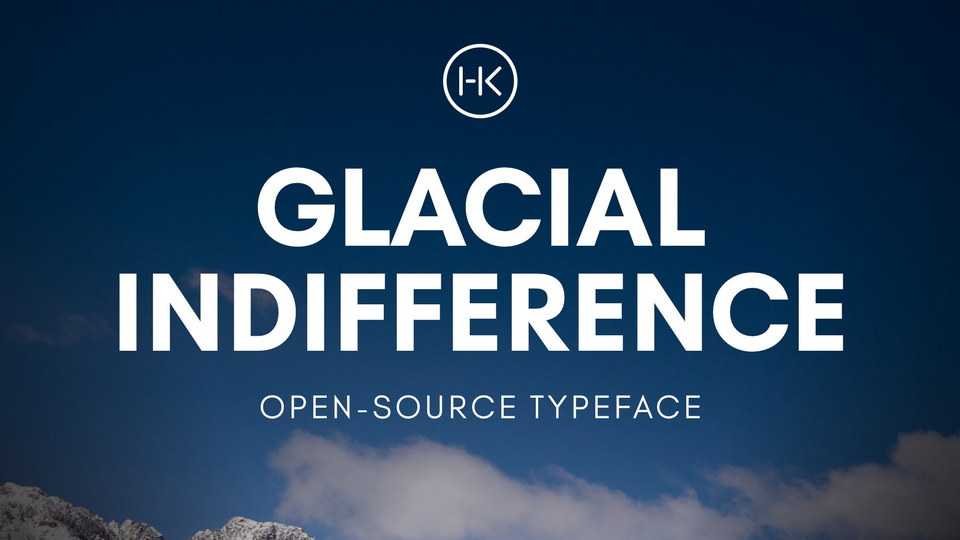
Download Glacial Indifference font, a simple sans serif typeface inspired by Bauhaus geometric fonts. Available in two weights, Regular and Bold, Glacial Indifference makes a great choice for both body text and headlines.
Designer: Alfredo Marco Pradil